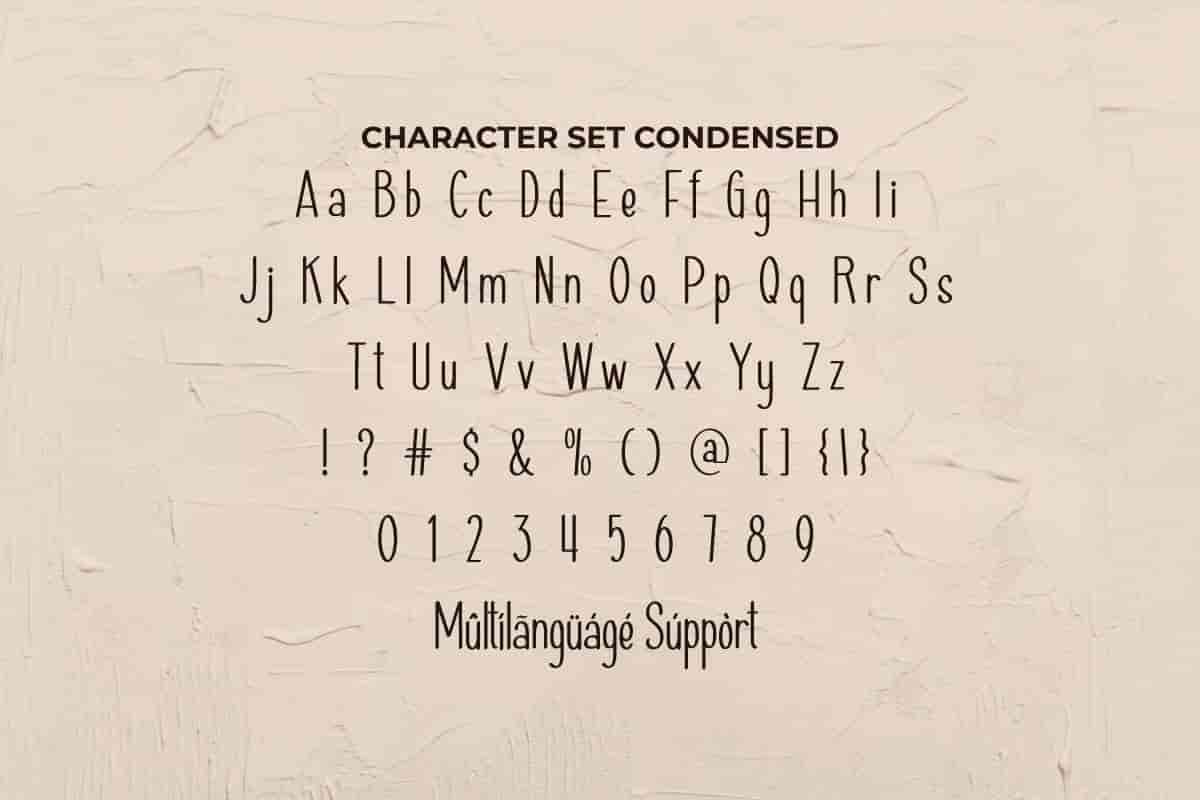
Haiesley Sans Serif Font
Haiesley Sans Font is a modern sans serif font with six different style options, exclusively designed by RaisProject. It will be perfect for bakery, handicrafts, homeware, labels, mockup design, website, etc.
Haiesley Sans Font  a stylish sans serif font with various different styles : Regular, Italic, Bold, Demo Bold, Condensed, and Condensed Italic. It will be perfect for many industries, such as bakery, boutique, café, fashion brand, handicrafts, homeware, interior design, publishing, real estate, restaurant, etc. You can see the demo font below and input any word you want so you can see what it will look like:
Haiesley Sans Serif Font includes a full set of cool Uppercase and Lowercase Letters, Numerals, and large range of Punctuation.It can customized on many designs, such as labels, mockup design, product packaging, screen printing, signage, stationery, website, etc. You will get: